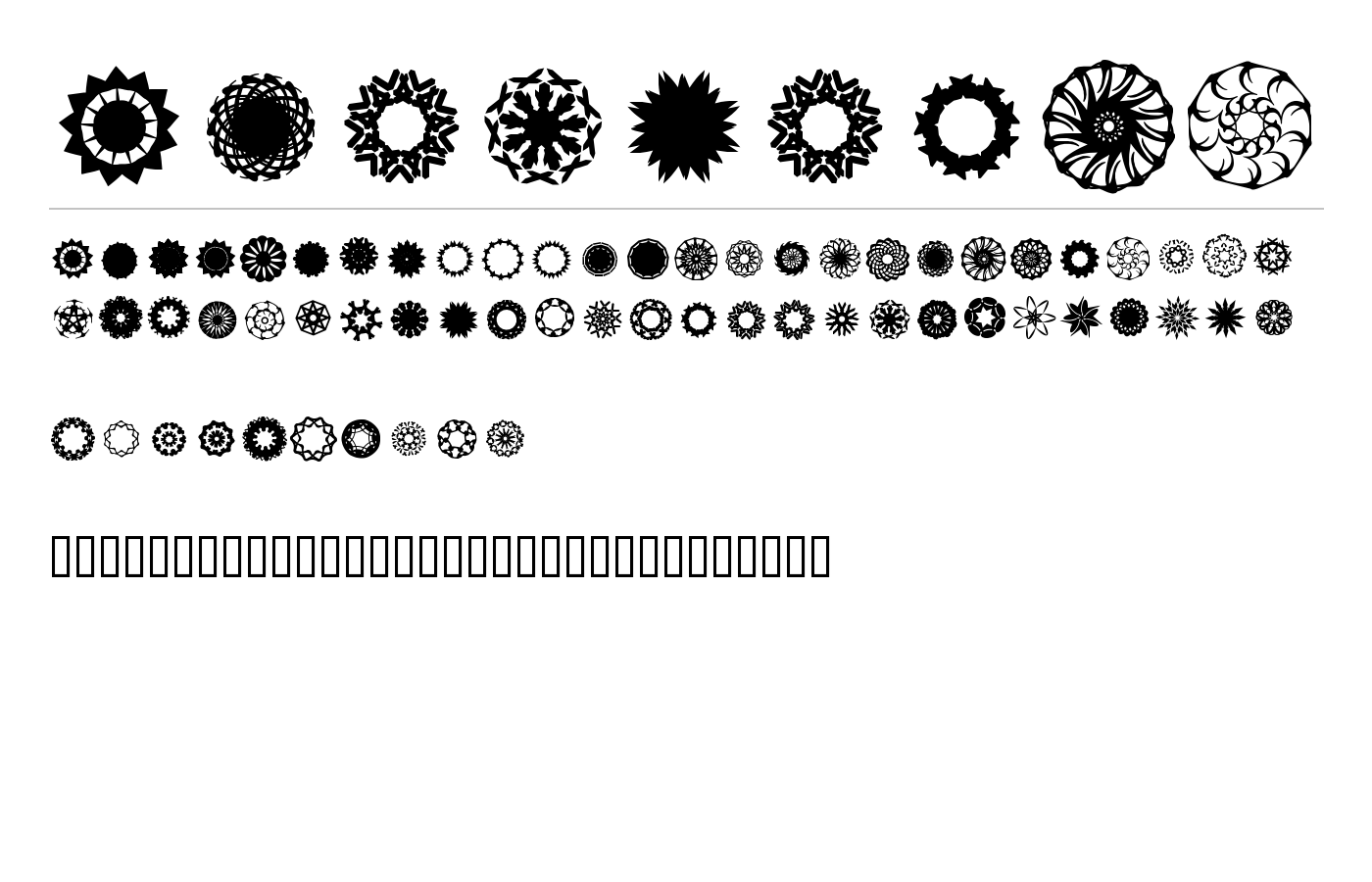
ASorionTW is a decorative symbol font featuring intricate circular and starburst-like motifs rather than traditional letters or numbers. Its complex, sharp-edged designs evoke a dynamic, modern feel perfect for adding ornamental flair to logos, packaging, or creative projects seeking a unique, eye-catching touch. This font works best when used as a visual accent or design element rather than for body text or extensive reading.
ASorionTW Font
About ASorionTW Font
| Font family | ASorionTW Font |
| Designer | Artem Shalakhin |